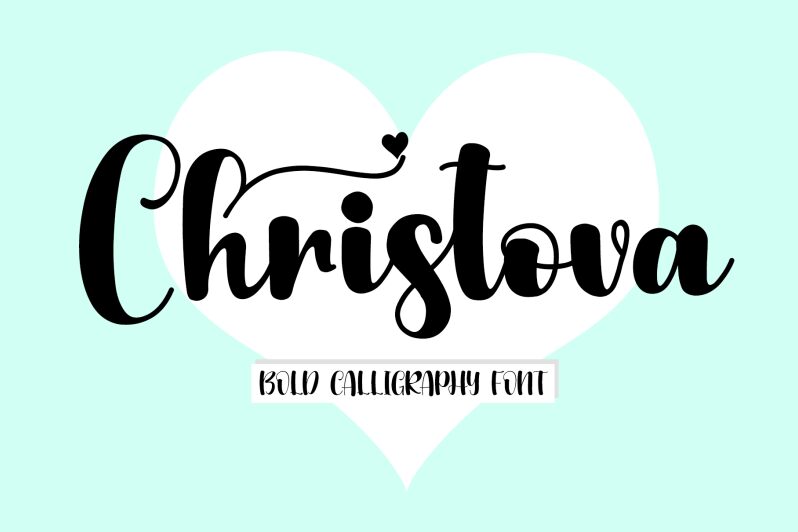
Christova - Personal Use
Christova, the bold creation by Letterafa Studio, combines the elegance of calligraphy with a smooth brush style. This versatile font is perfect for projects that demand attention and creativity. With its bold weight and touch of calligraphy, Christova adds a sophisticated flair to wedding invitations, luxury branding, or fashion editorials. Whether you're designing a logo or crafting eye-catching headlines, this typeface guarantees to captivate your audience with its fluid strokes and timeless appeal. Elevate your designs with Christova and make a lasting impression across various digital and print platforms.